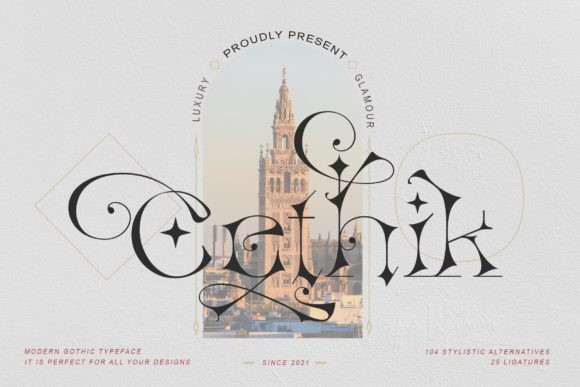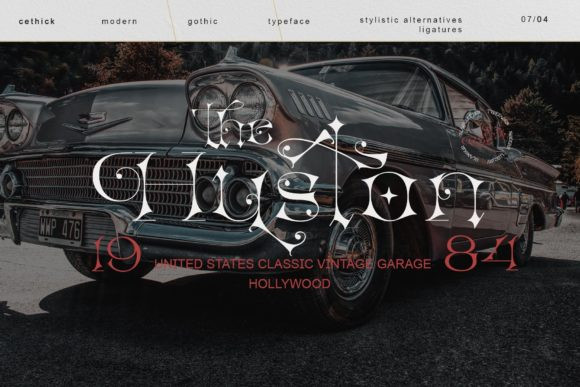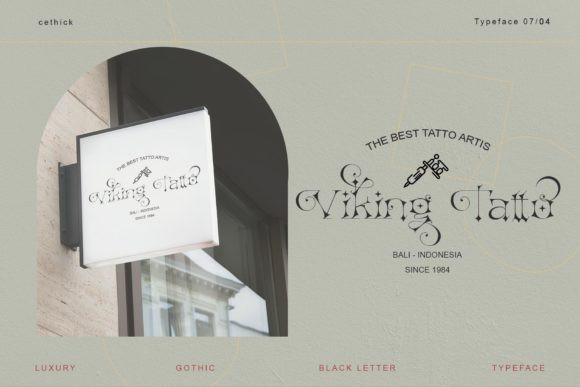
Cethik Font
Cethik is an incredibly cool and genuine display font. This font is neatly crafted and highly detailed. Cethik is PUA encoded which means you can access all of the glyphs and swashes with ease!